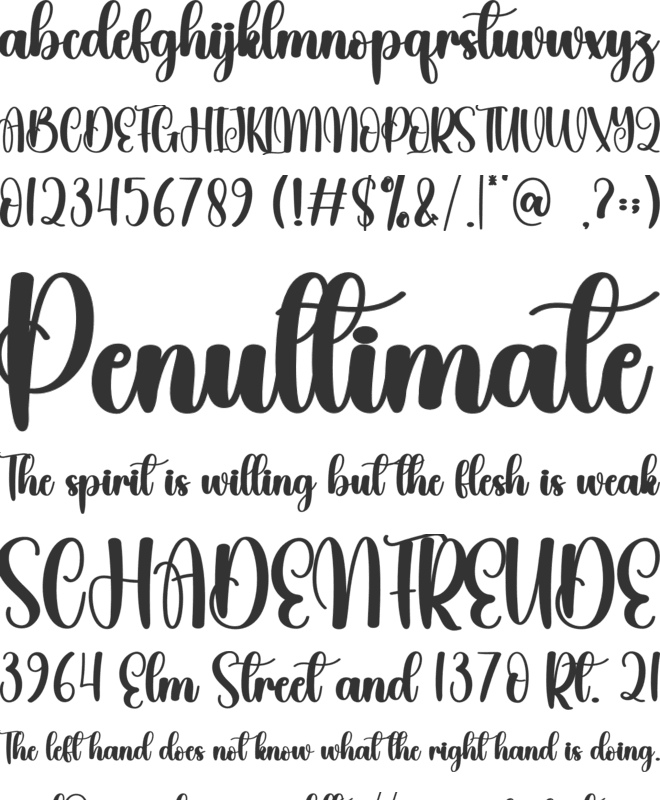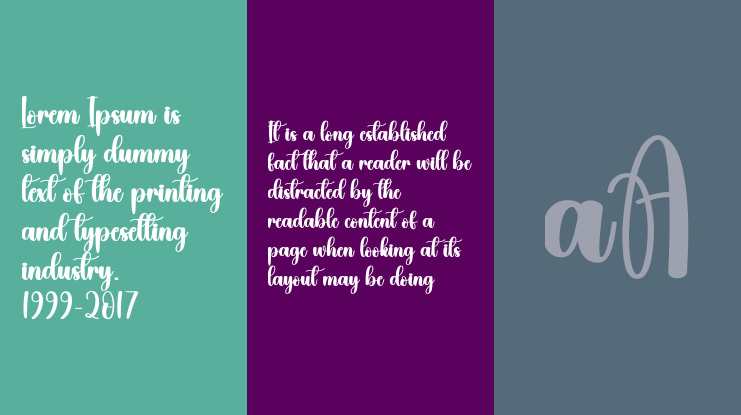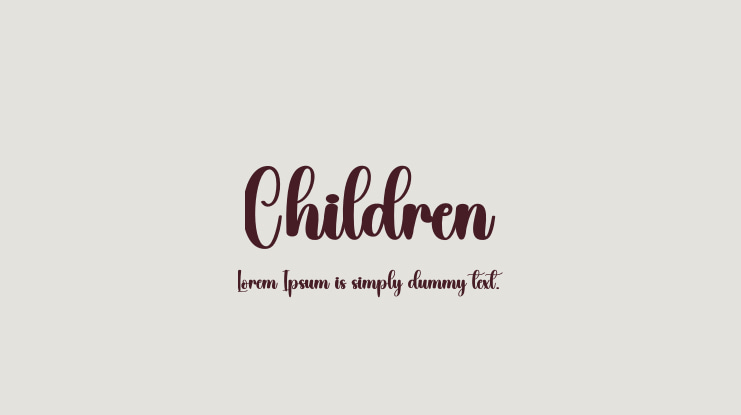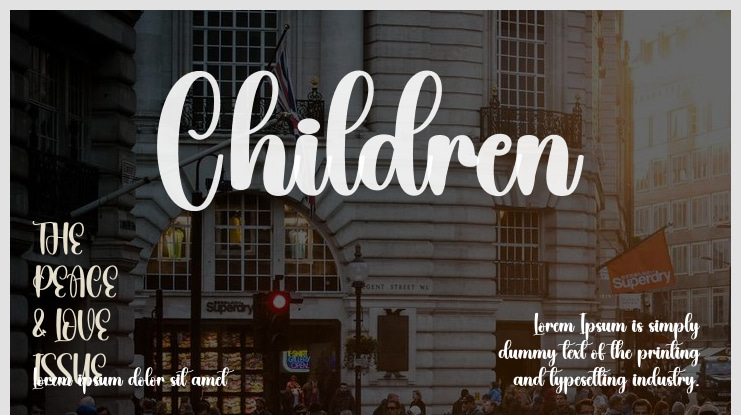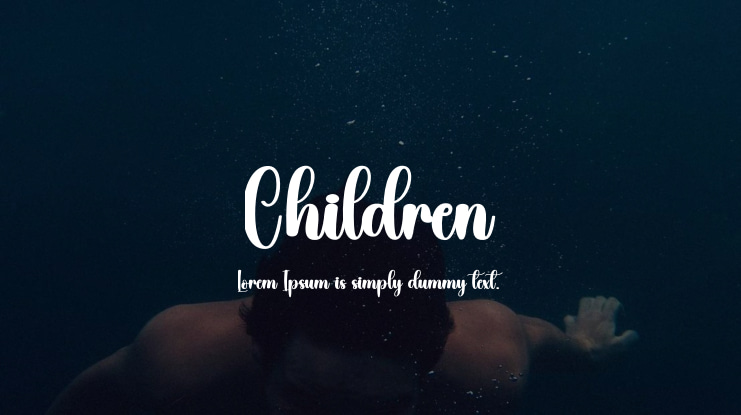
Children Font
The latest style of lettering is ideal for:
- Wall displays - Wedding invitations - Social media post logos - Advertisements - Product packaging - Product designs - Labels - Photography - Watermarks - Invitations - Stationery - Any project requiring tasteful handwriting